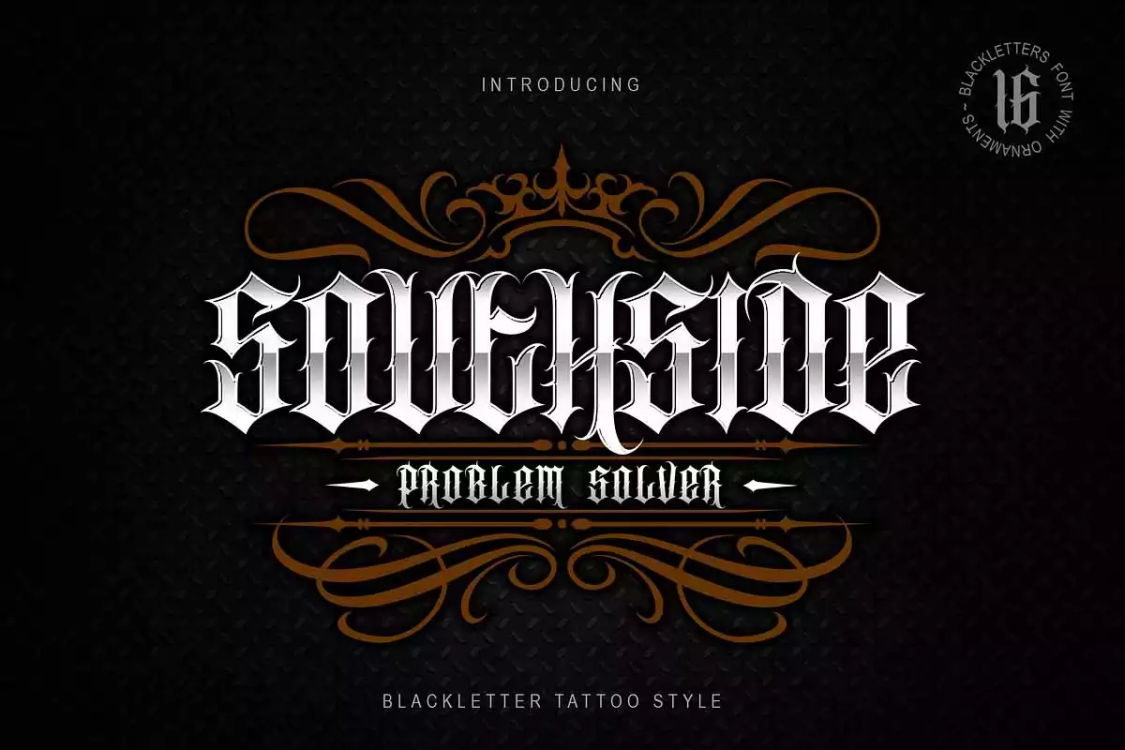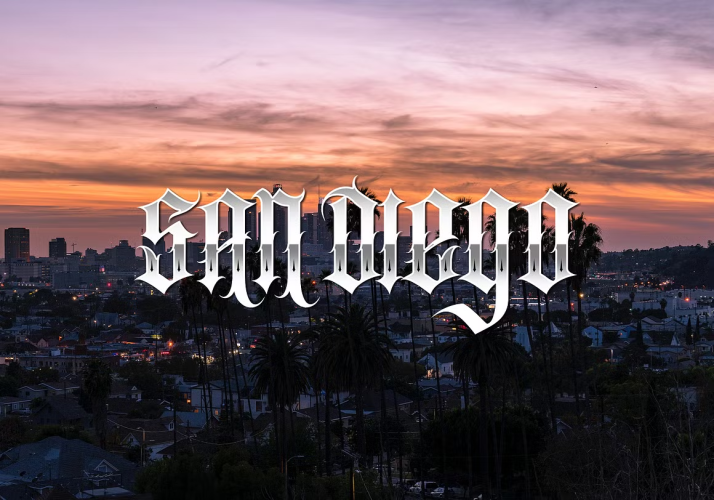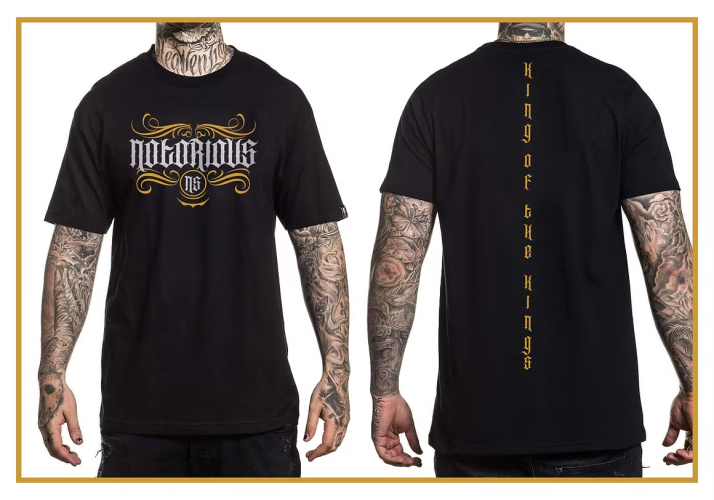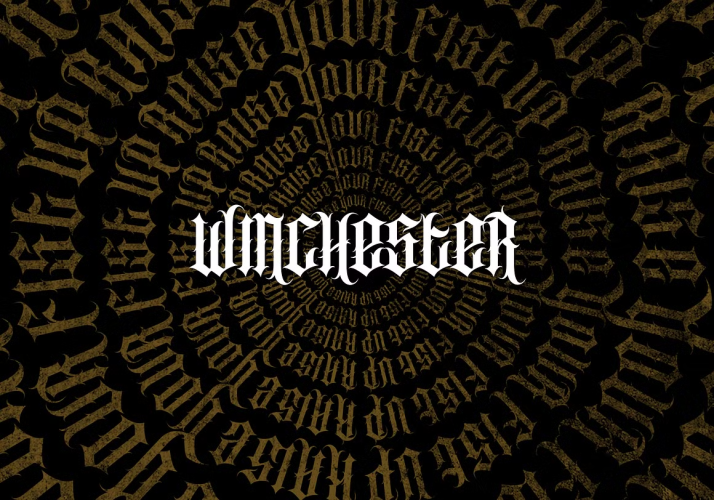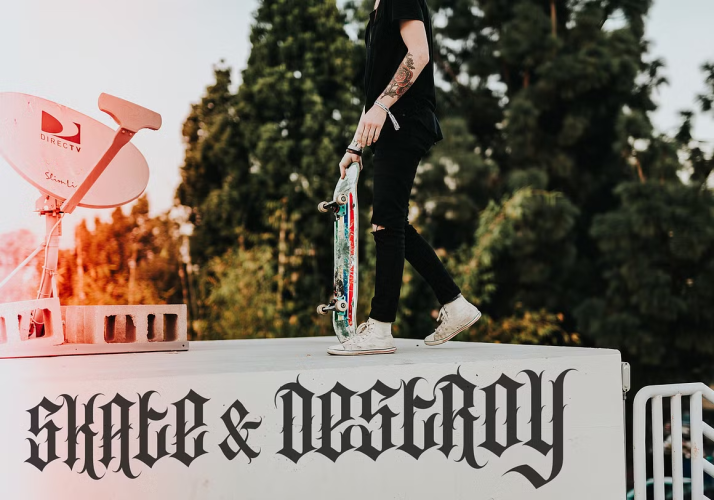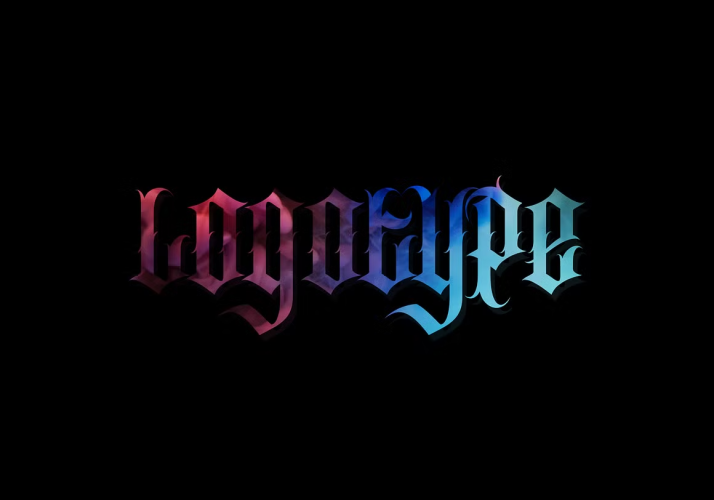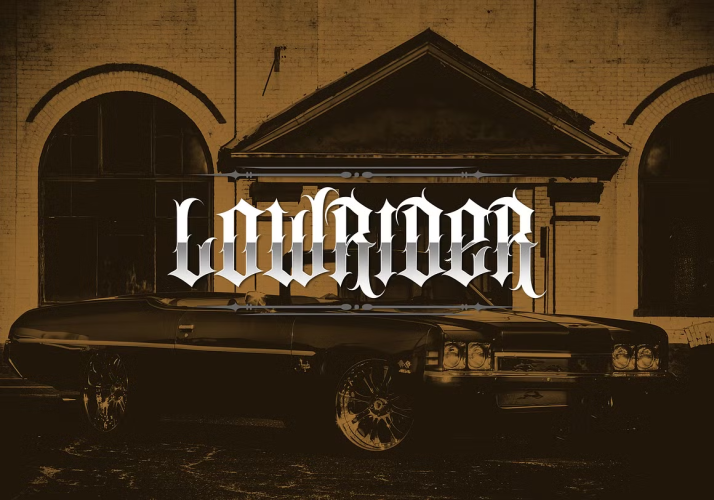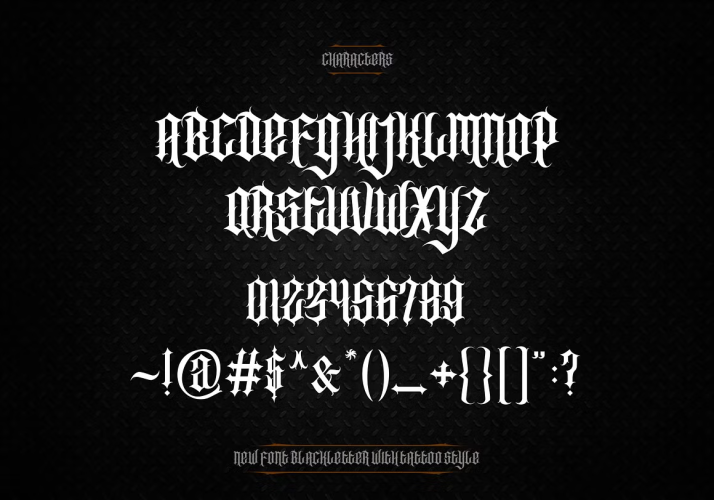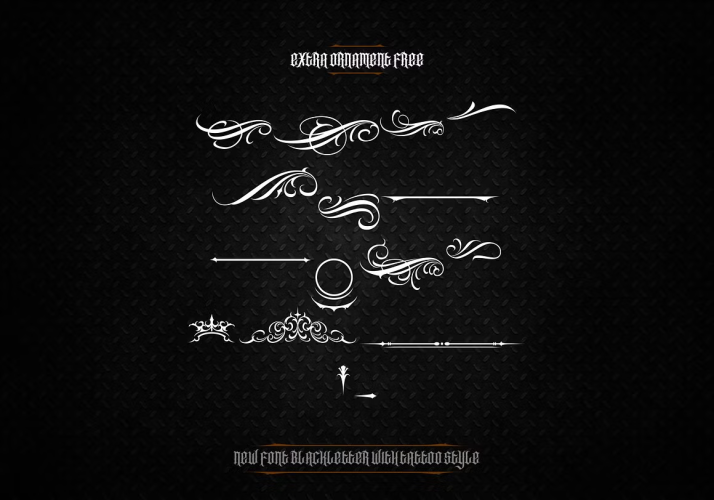
Southside Font
Southside font includes uppercase letters, numerals, a wide range of punctuation, and a Free Extra Bonus Ornament. It is a professional blackletter font with a tattoo style and many free ornaments for your logo lettering, shirt design, logo tattoo studio, tattoo design, branding, etc.
Southside Font is a Blackletter Font font that brings a professional and versatile look to your projects. Southside font includes uppercase letters, numerals, a wide range of punctuation, and a Free Extra Bonus Ornament.